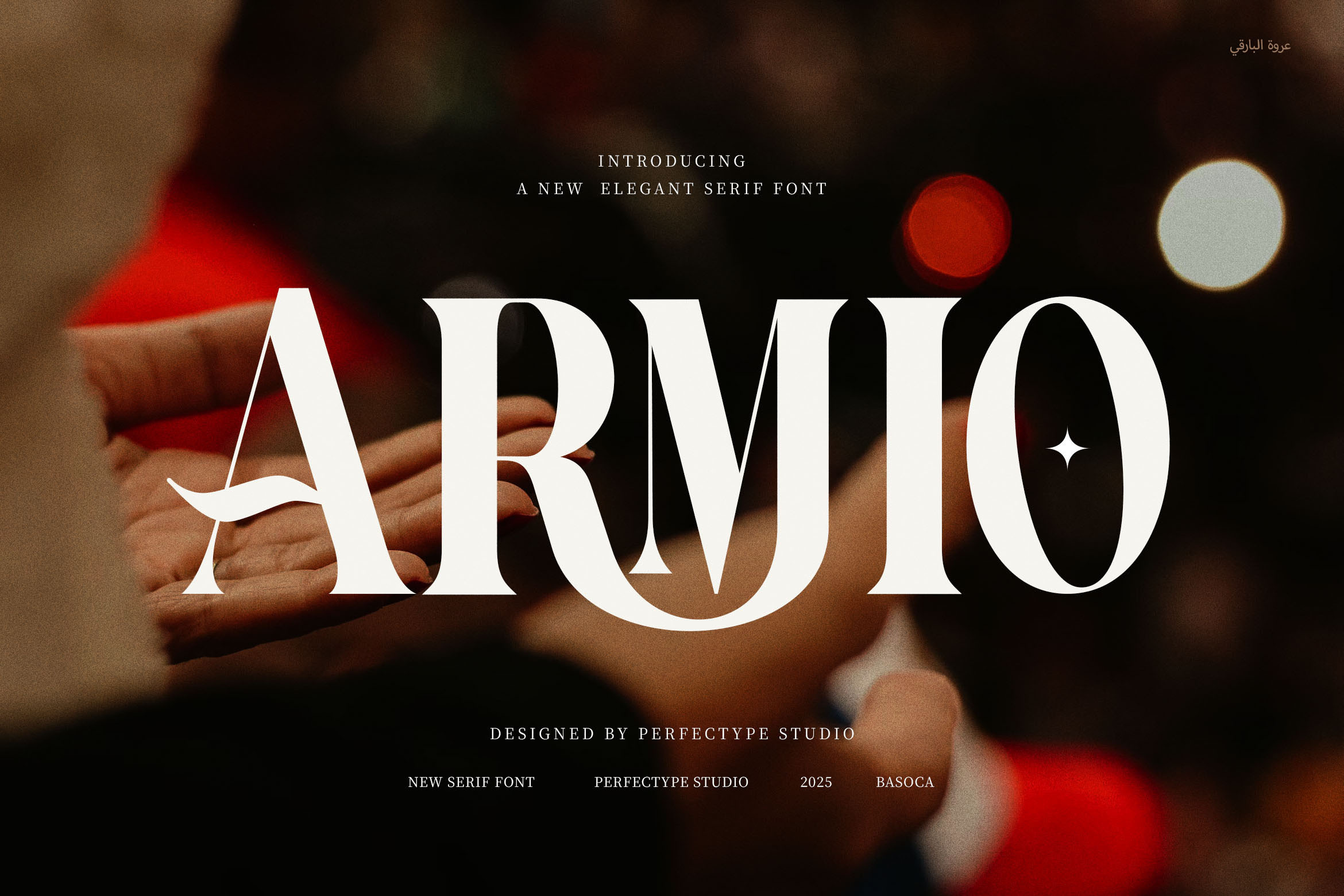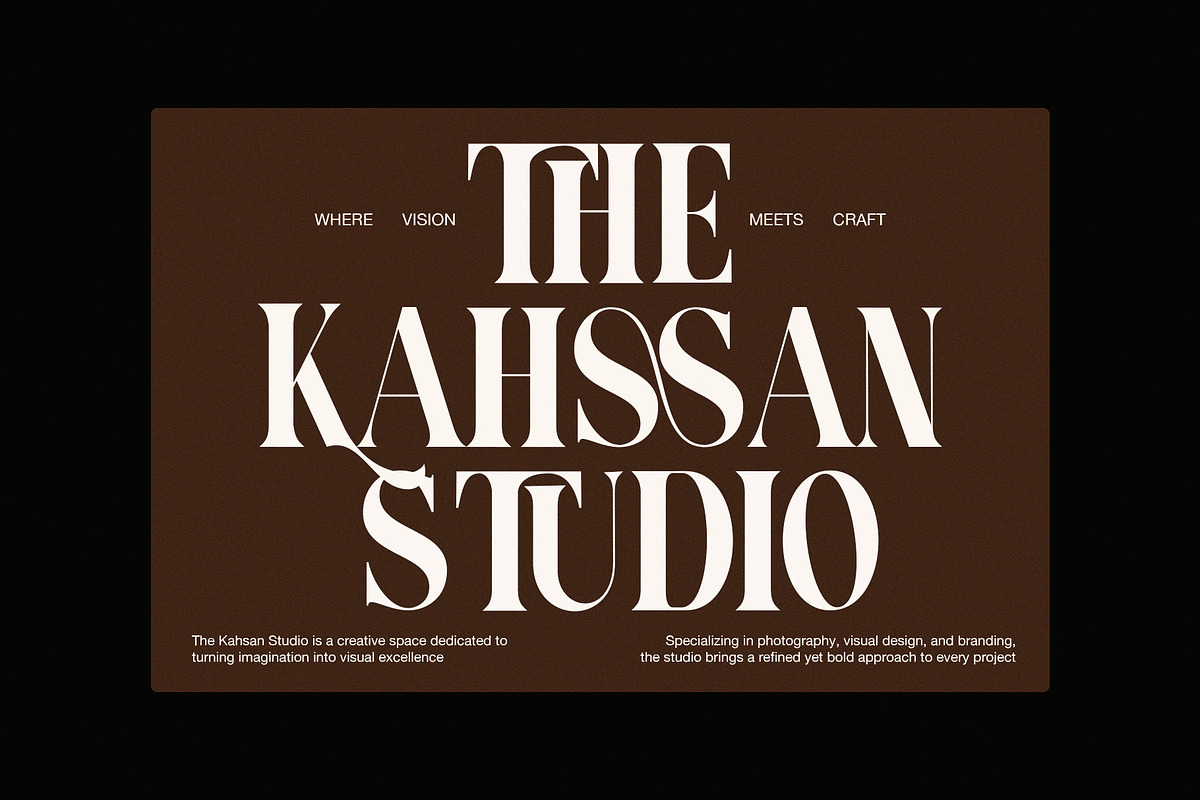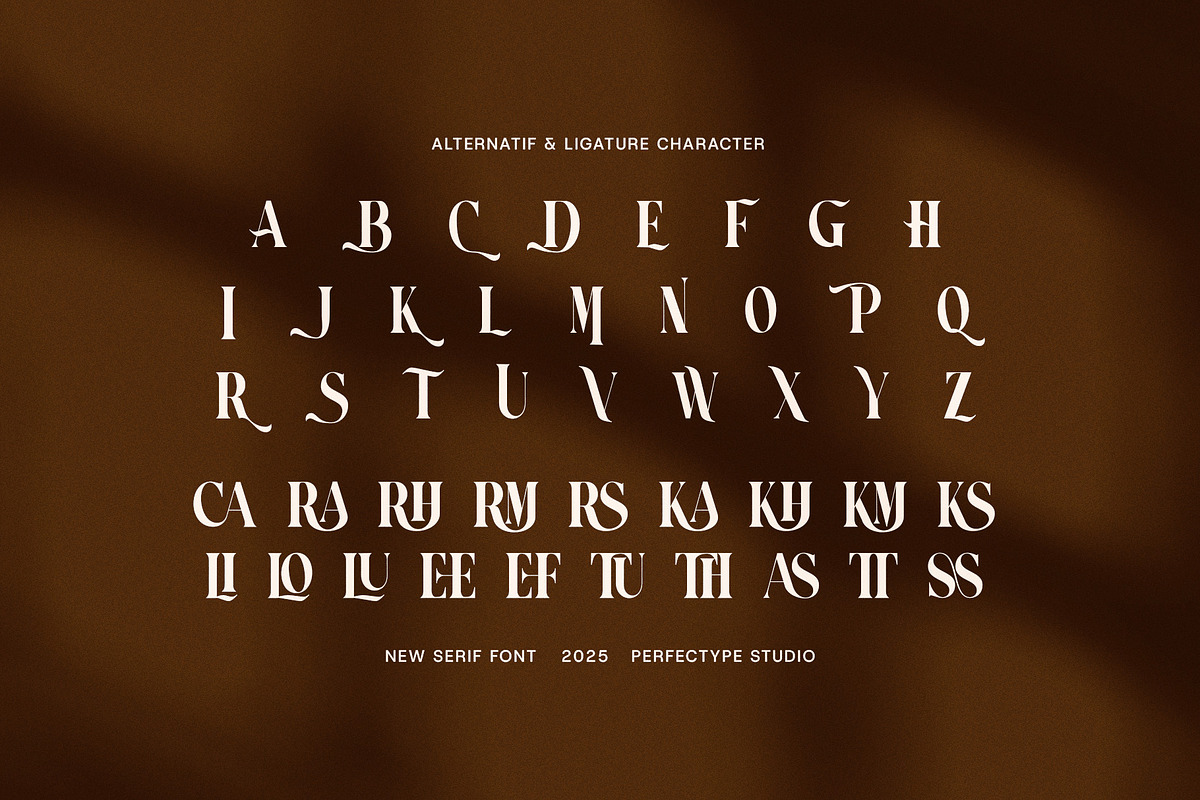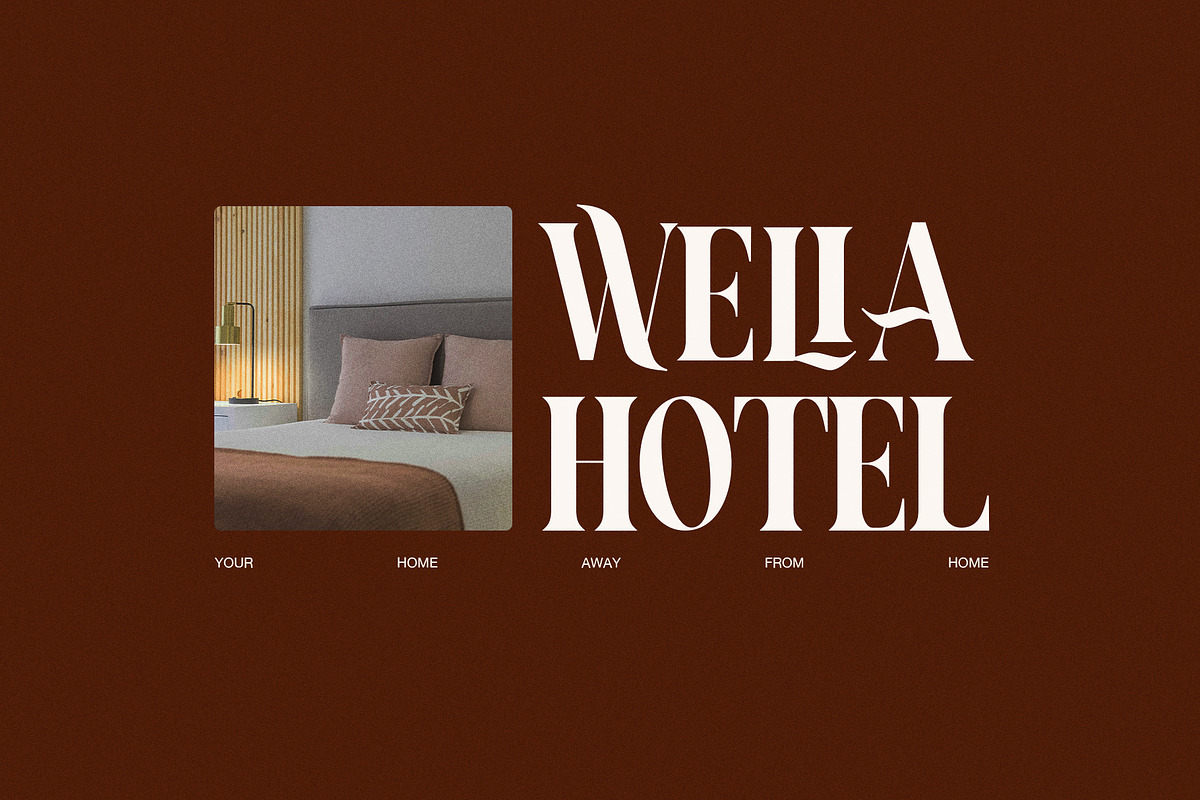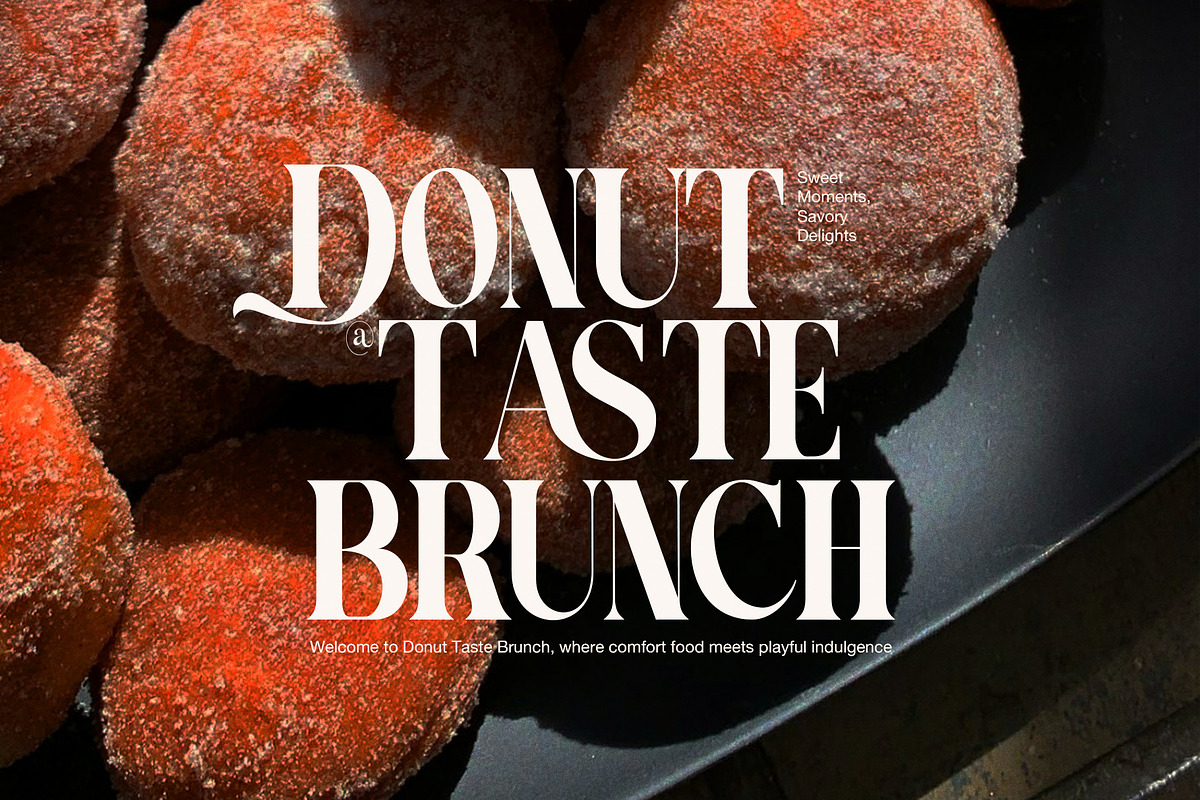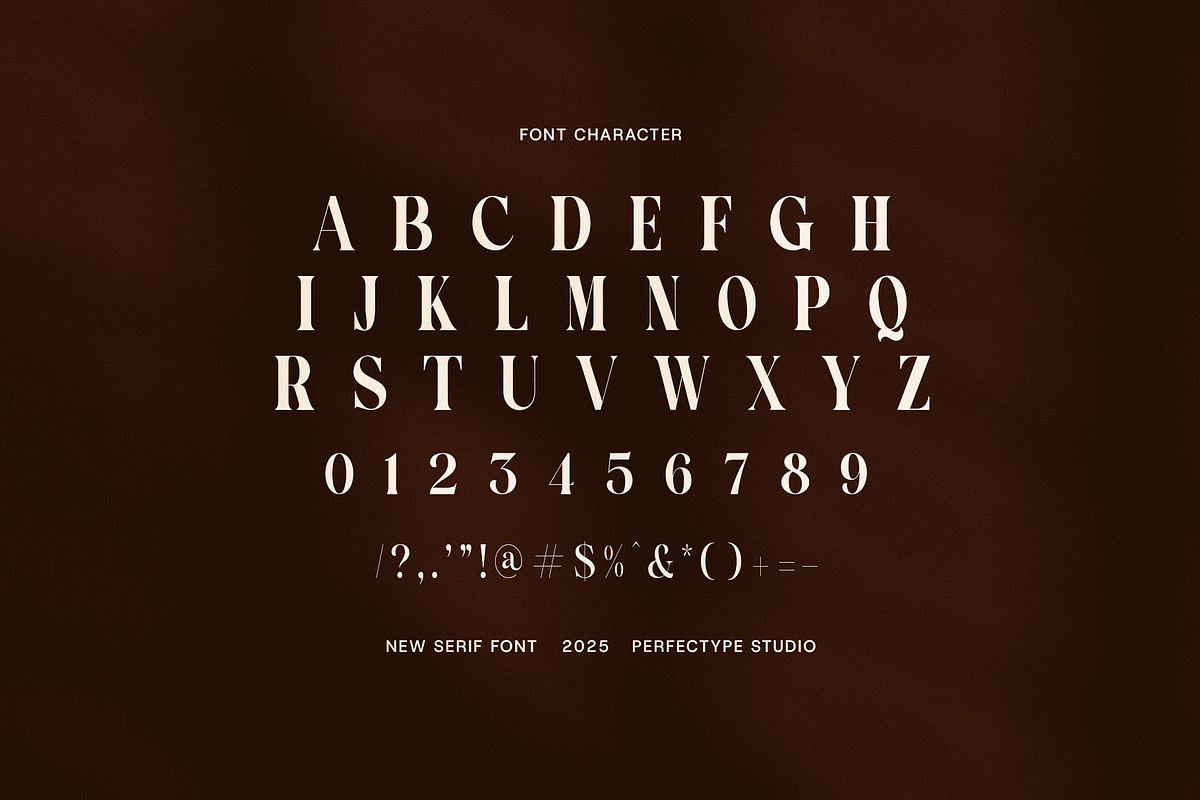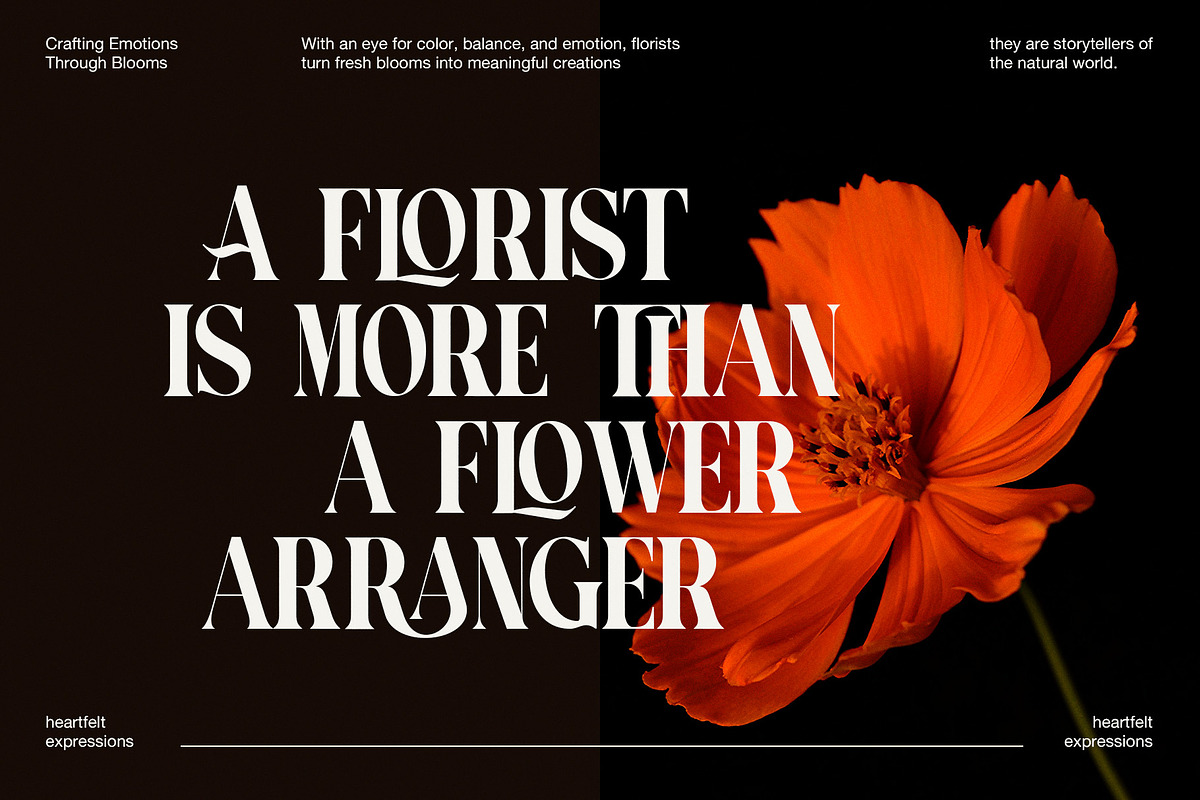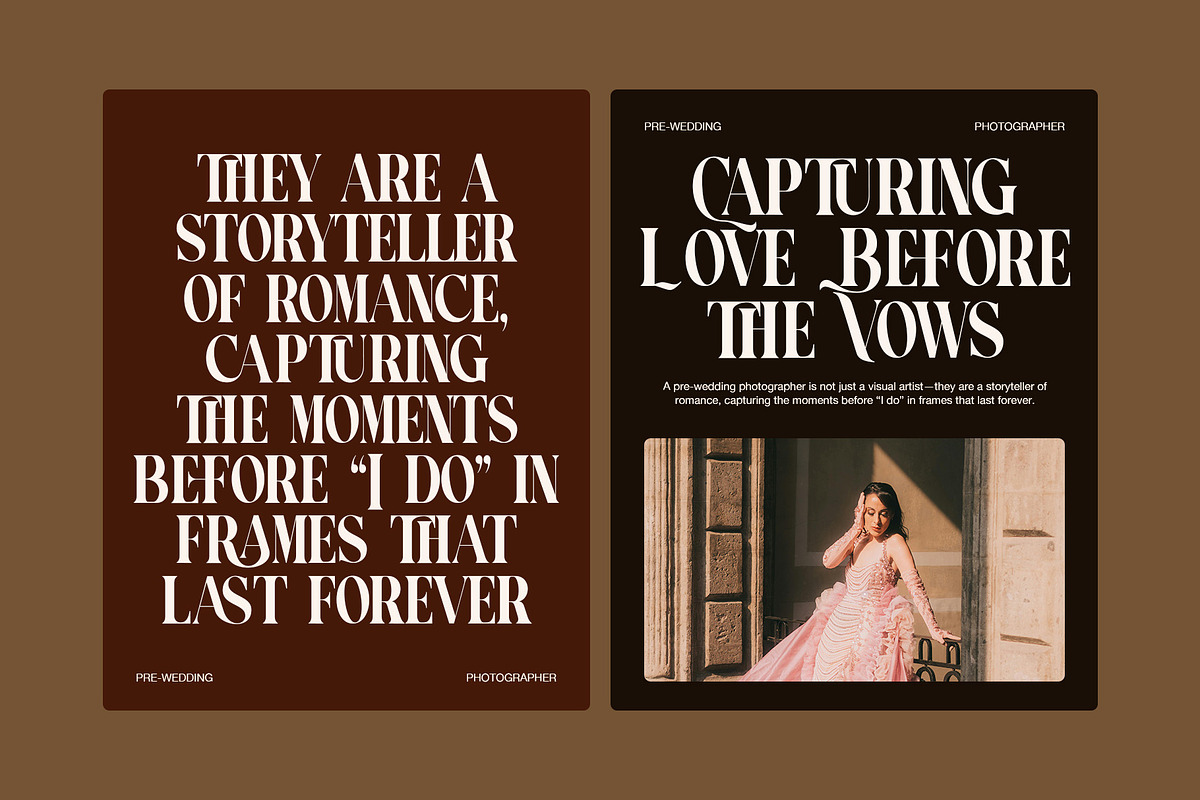
Armio Elegant Serif Font
Armio Elegant Serif Font is a classy and modern serif typeface designed for visual impact across digital and print platforms. With its proportional shapes and timeless style, Armio is the ideal choice for creating a refined and professional brand presence.
This font offers a perfect mix of elegance and readability. It features clean, balanced letterforms and functional ligatures that enhance flow and add beauty to every project. From logos to product packaging, Armio’s versatile design makes it a must-have for creative professionals.
Armio is built to suit a wide range of uses including logos, brand identities, website headers, editorial designs, magazines, product labels, advertisements, boutiques, and even culinary branding. Its smooth curves and modern structure allow it to blend easily into both luxury and minimalist aesthetics.
Why Armio is a Designer Favorite:
Modern serif design with timeless sophistication
Elegant ligatures for smooth, professional layouts
High readability on both print and web
Suitable for logos, packaging, branding, and more
Whether you're working on a bold rebrand or creating a sleek magazine cover, Armio brings a distinctive charm that elevates your message and connects with your audience.